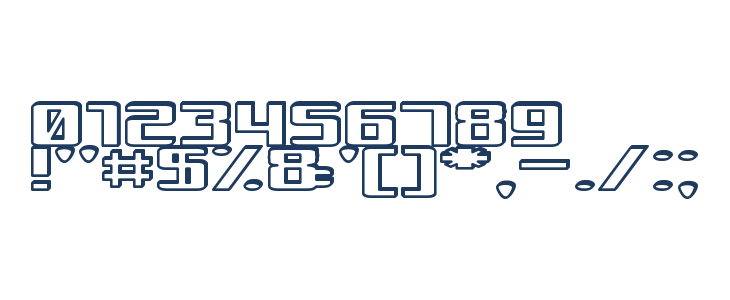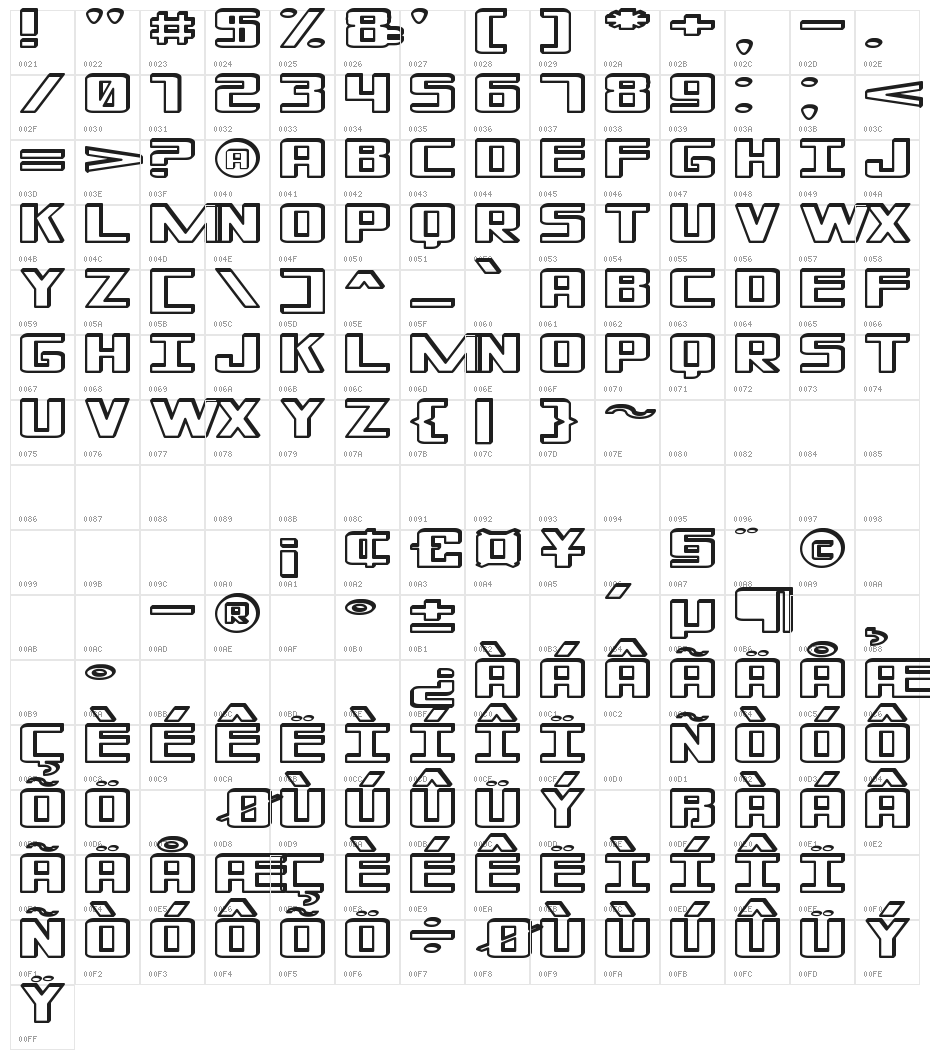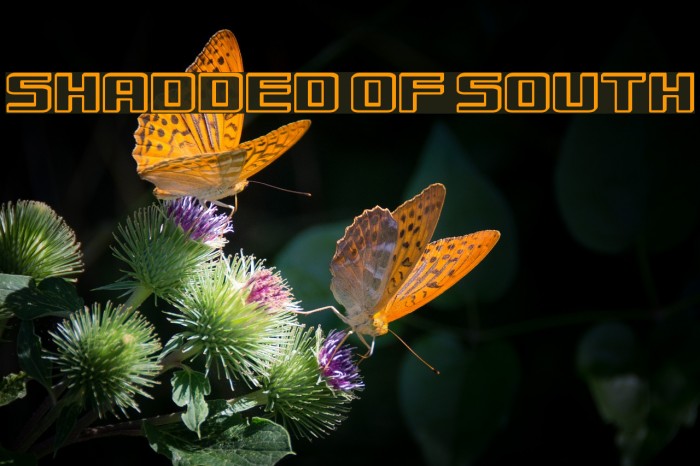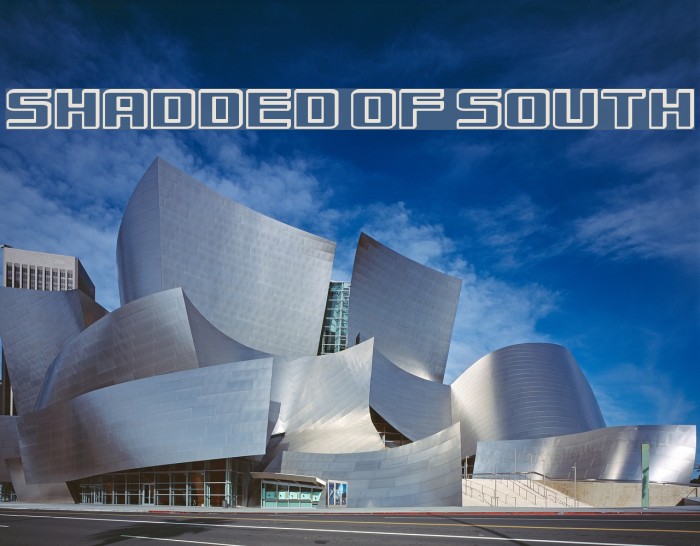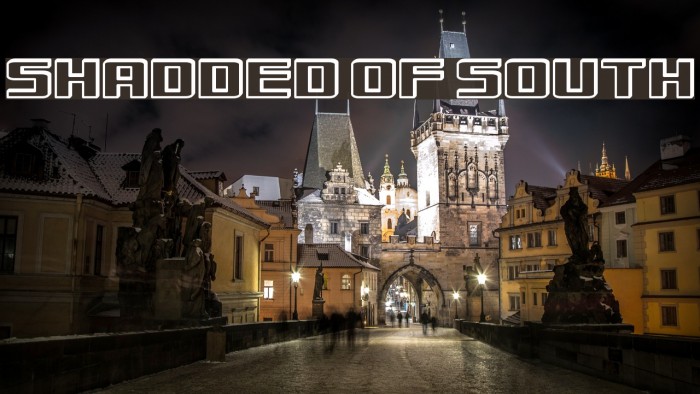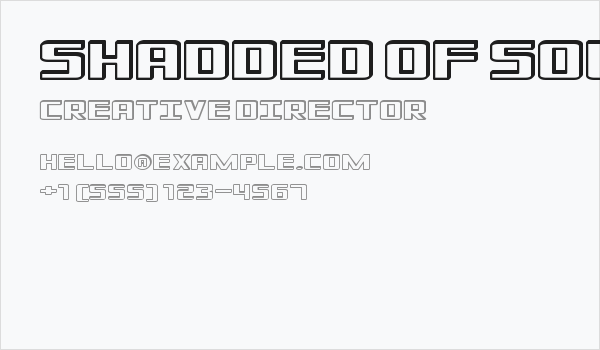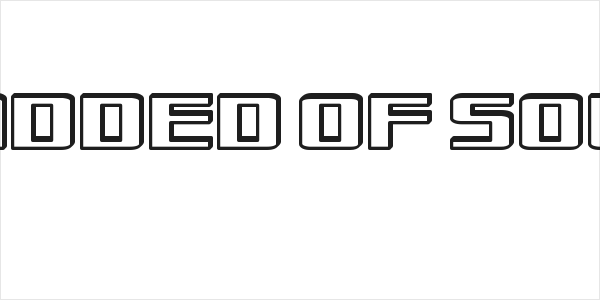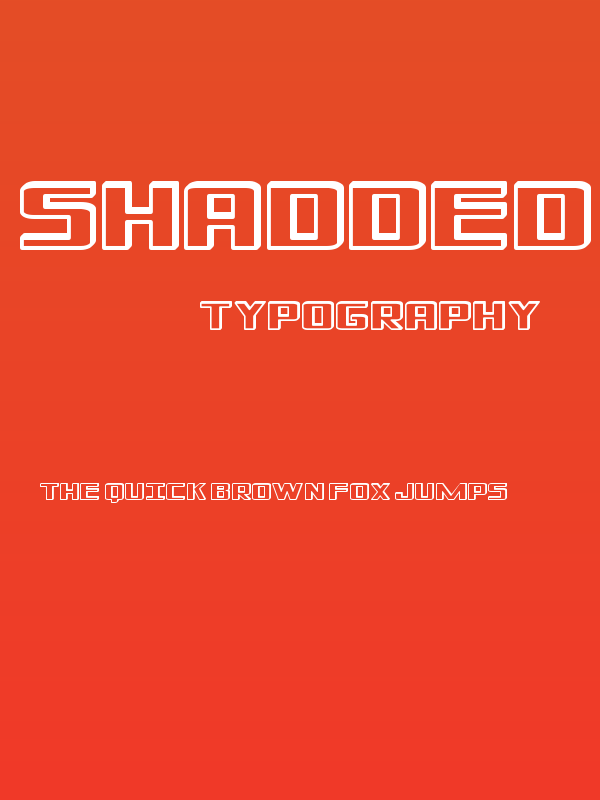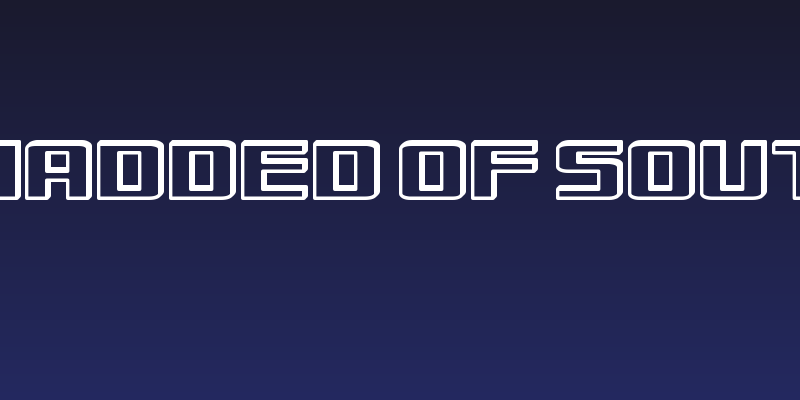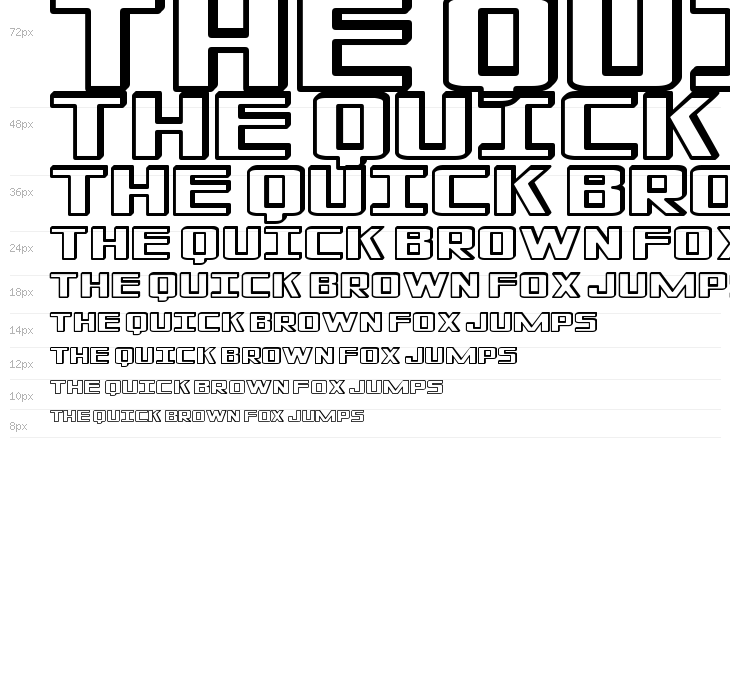
Shadded of South Font
Shadded of South Description
This font features a bold, geometric design with a distinct outline style that gives it a modern and futuristic appearance. The characters are constructed with uniform line thickness, creating a sense of balance and symmetry. The uppercase and lowercase letters maintain a consistent height, contributing to a cohesive look. The numerals and special characters follow the same design principles, ensuring uniformity across all glyphs. The font's unique style makes it stand out, while the clear and legible forms ensure readability.
| Proposed Projects | Ideal for technology branding, video game titles, sci-fi posters, and modern digital interfaces. |